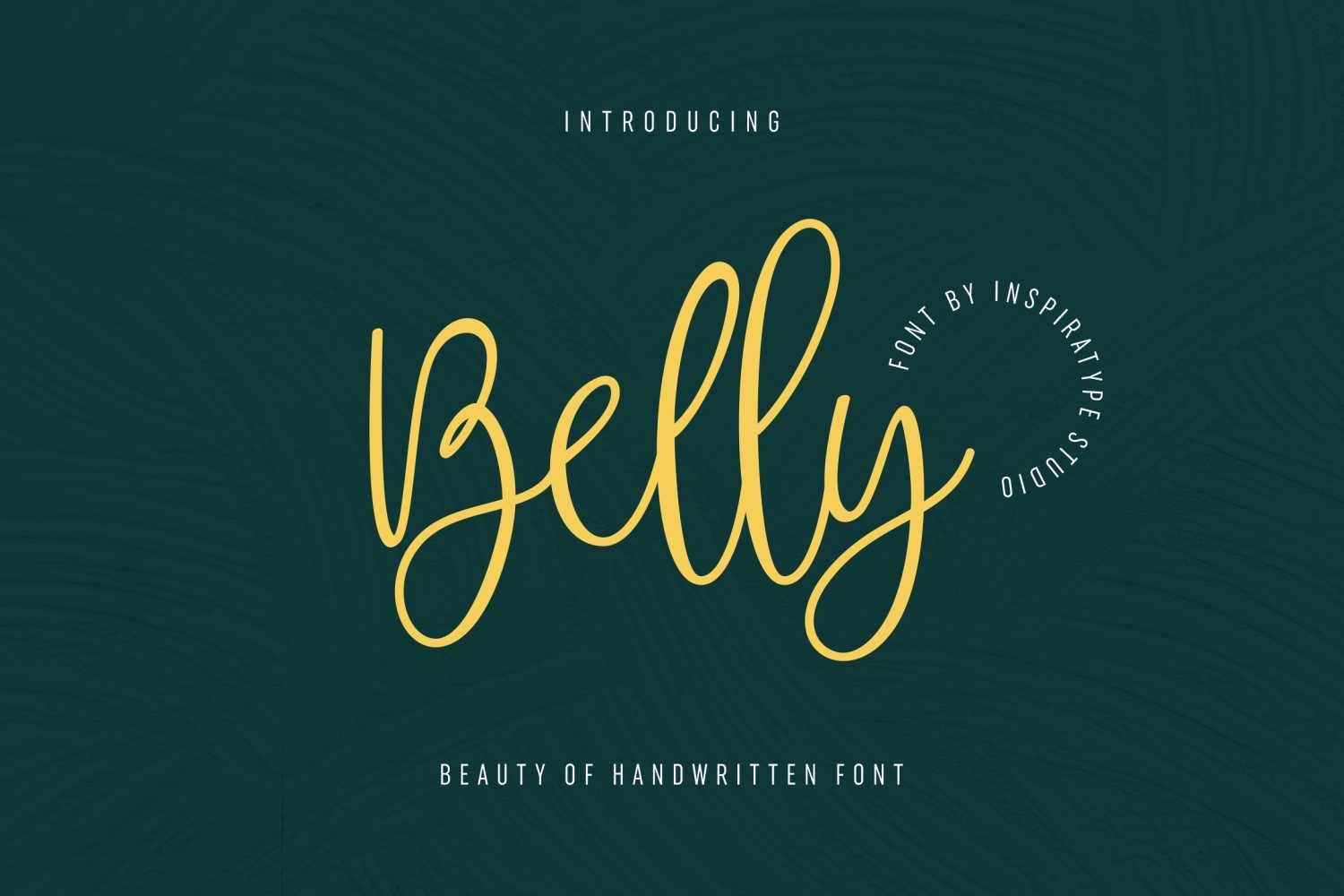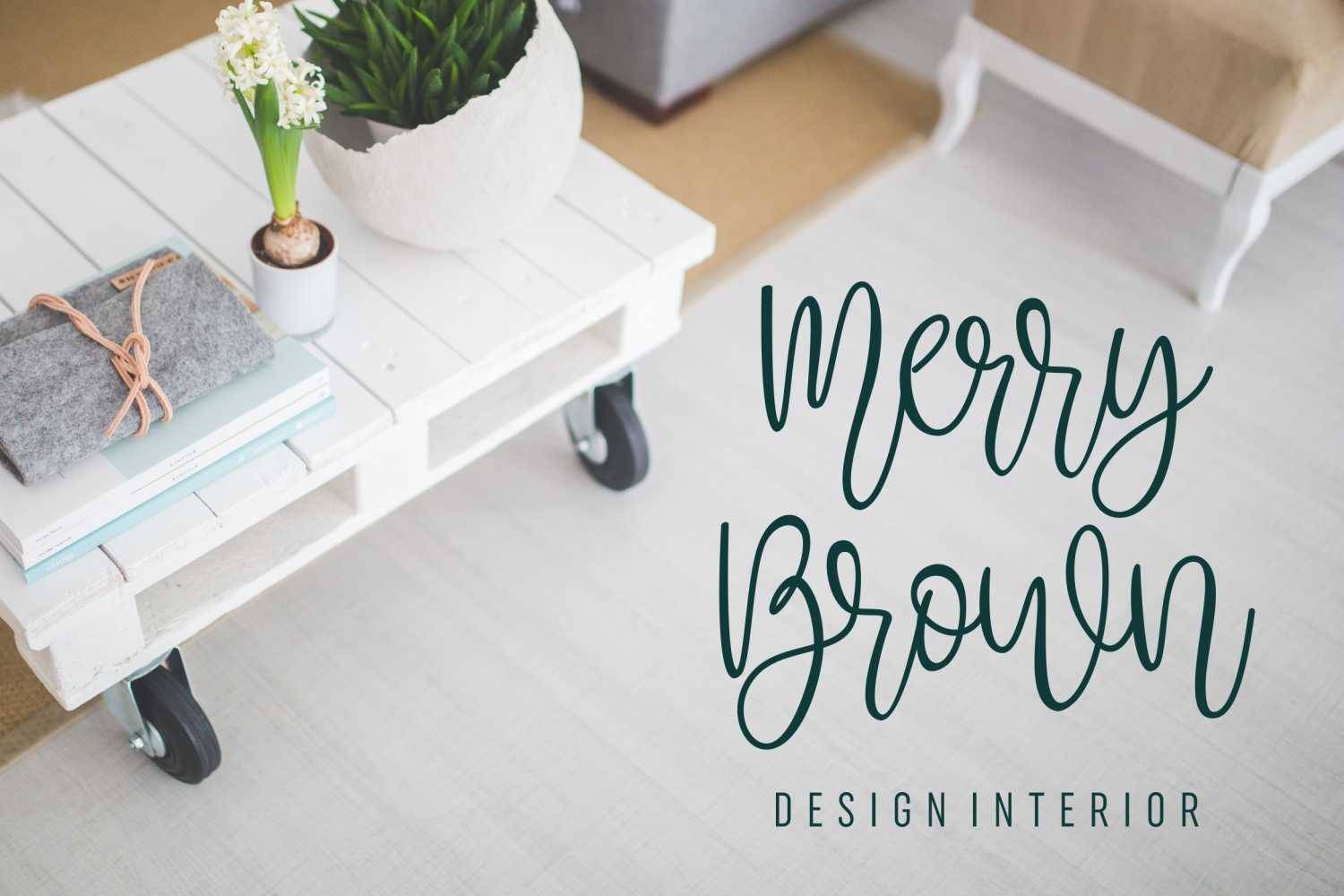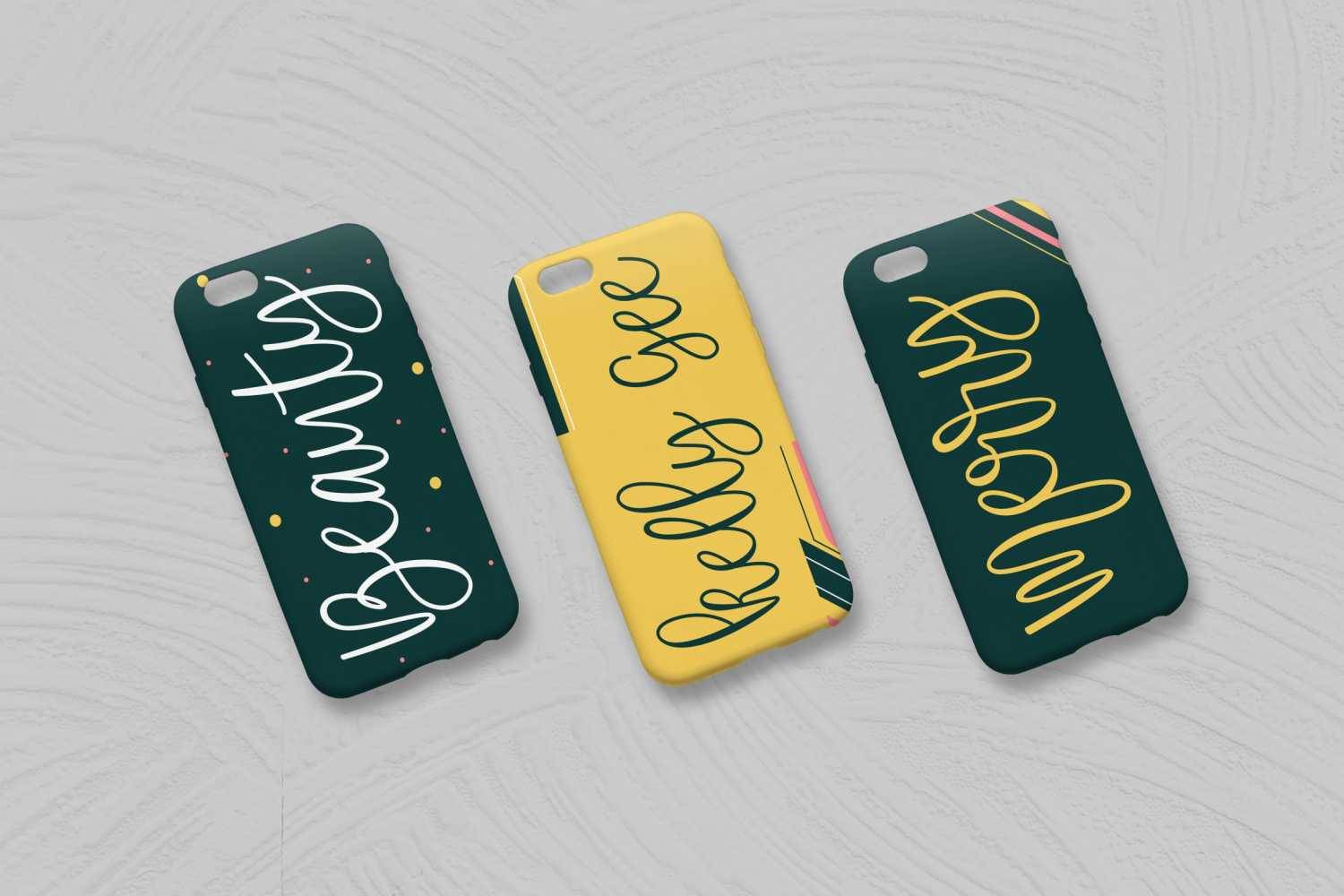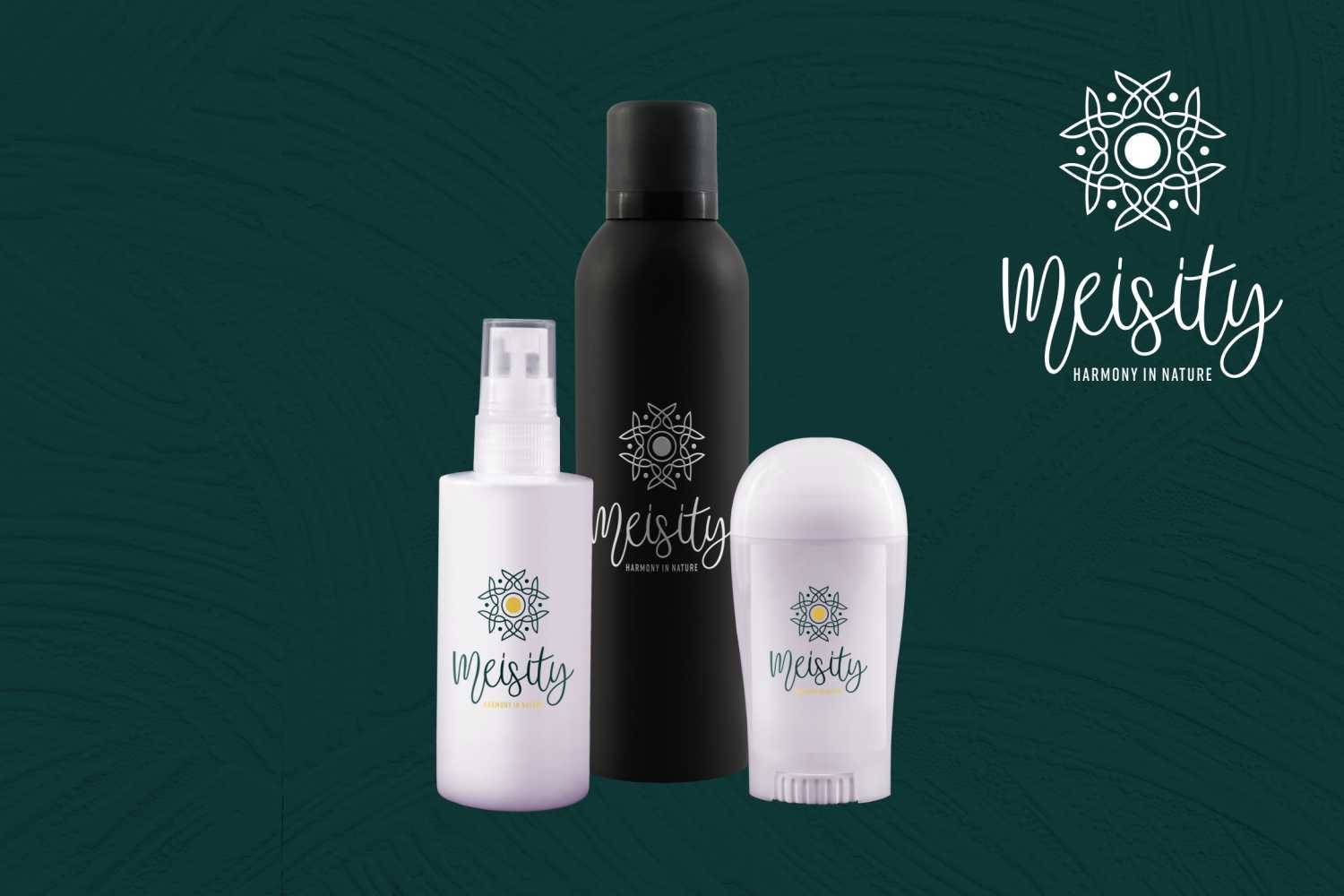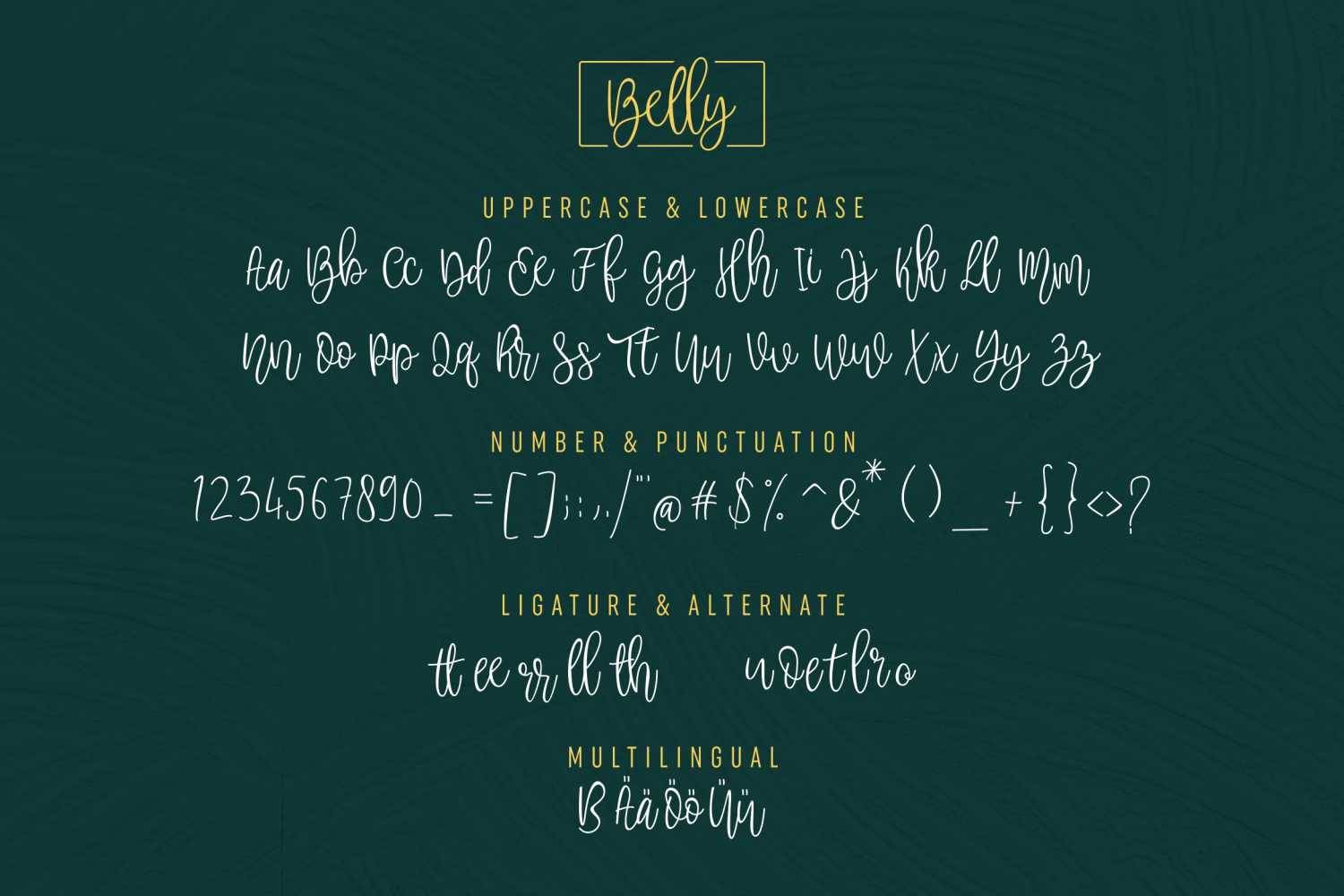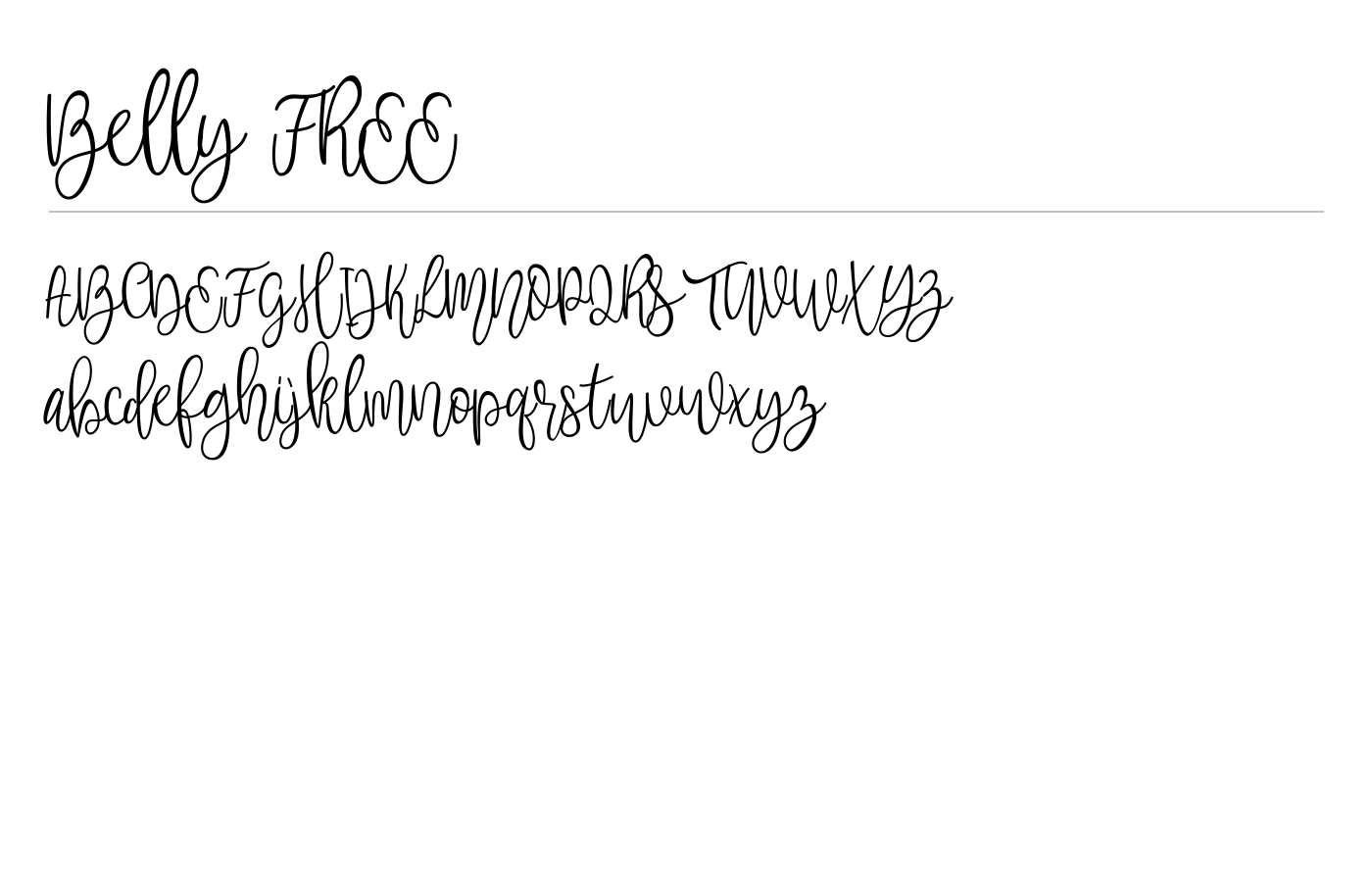
Belly Font is a delicate, handwritten script with a light, airy feel and smooth, flowing strokes that create an elegant yet casual look. Its narrow letterforms and whimsical loops give it a charming, friendly personality perfect for invitations, personal branding, and creative projects that want a warm, approachable touch. This font works especially well in designs that need a stylish, informal flair without sacrificing readability.
Belly Font
About Belly Font
| Font family | Belly Font |
| Designer | Inspiratype |